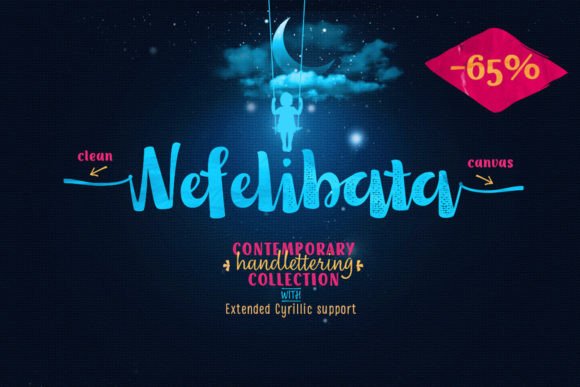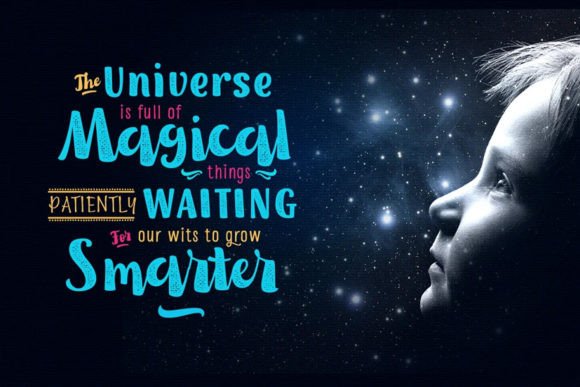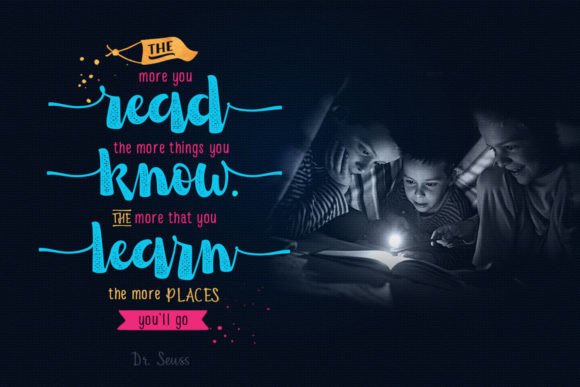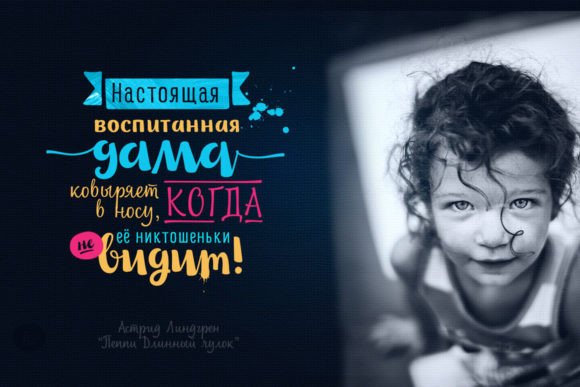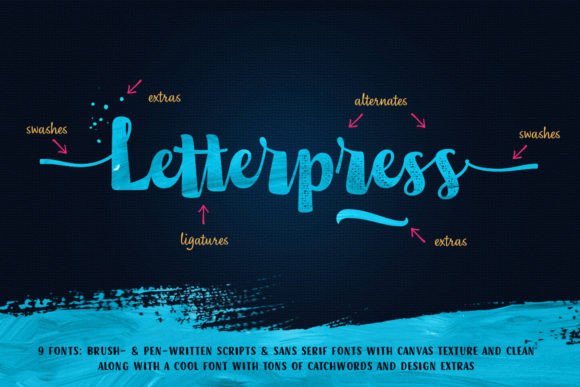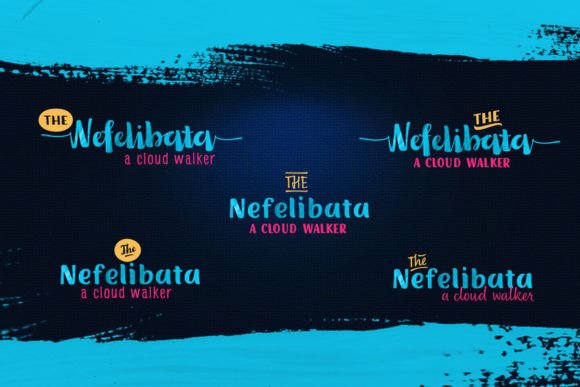
Nefelibata Font
A Dreamy Collection for Creative Souls
Nefelibata is a unique handwritten font collection created for designers who love to dream big. The name means “cloud walker,” and this set truly captures that spirit. Each font feels soft, fresh, and full of imagination.
With 9 fonts and extra design elements, Nefelibata gives you everything you need to build beautiful, modern projects. The collection mixes brush scripts and clean sans serif styles that look great together. You can combine them in endless ways to tell your story.
Perfect for Modern and Artistic Projects
This font collection is perfect for branding, packaging, and social media graphics. You can use it to design logos, posters, and invitations that stand out. Nefelibata also works beautifully for blog headers, business cards, and greeting cards.
All 9 fonts have smooth edges, so they stay crisp and readable at any size. Whether you’re making a large title or a small label, your text will always look clean and professional.
Easy to Read and Mix
Although Nefelibata has a playful, handwritten style, it remains clear and easy to read. The fonts are balanced and versatile, making them perfect for many design styles.
Pair the brush script fonts with the sans serif options to create contrast and interest. Use a script for headlines and a sans serif for body text. This helps organize your layout and guides the reader’s eye naturally.
Tips for Beautiful Results
To get the most out of Nefelibata, try using light backgrounds and soft color palettes. Pastels and neutral shades help highlight the delicate curves and clean lines.
If you’re designing for weddings or special events, add watercolor textures or floral illustrations. These touches enhance the dreamy, romantic feel. For more modern projects, keep your layout minimal so the fonts can shine.
Think about the mood you want to share. Nefelibata is perfect for work that feels creative, authentic, and full of wonder.
Nefelibata is more than just a font—it’s a complete toolkit for contemporary design. The mix of styles lets you build unique, layered compositions that feel personal and polished.
Adding Nefelibata to your font collection gives you a reliable choice for any project that needs creativity and charm. From branding to packaging, this set adapts to your ideas with ease.